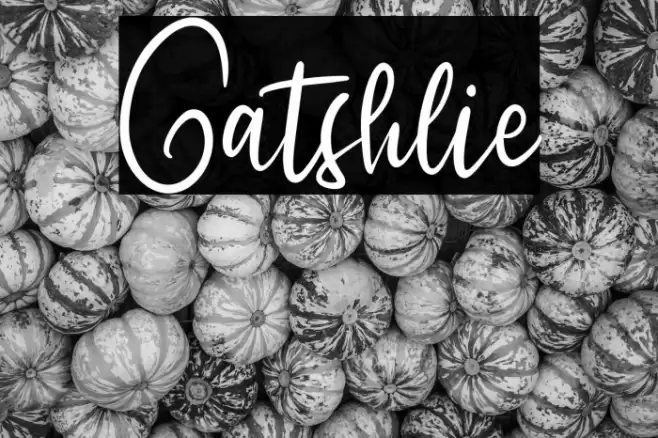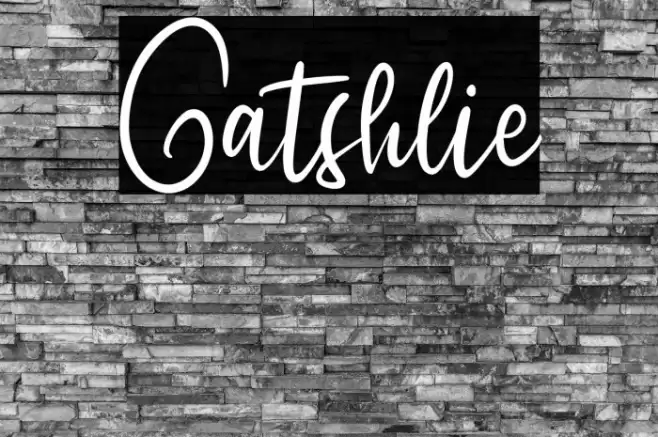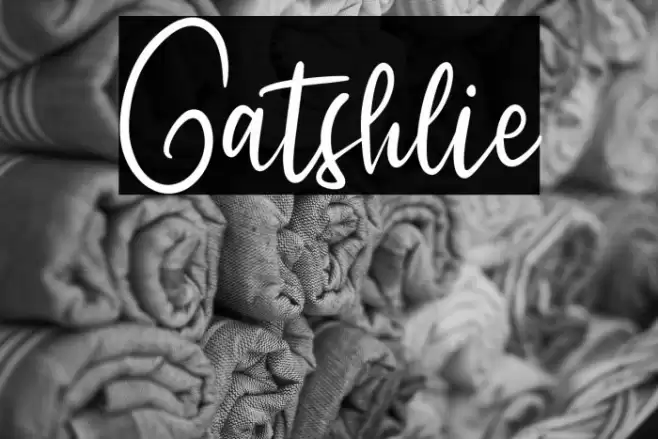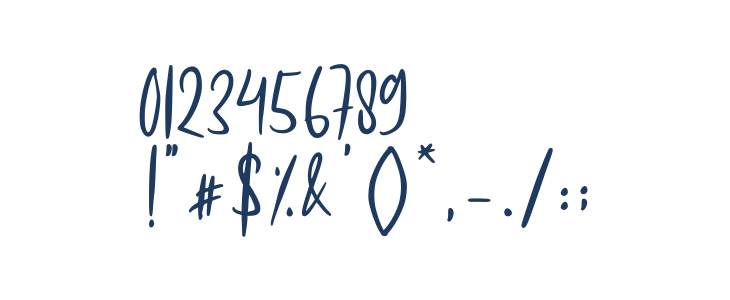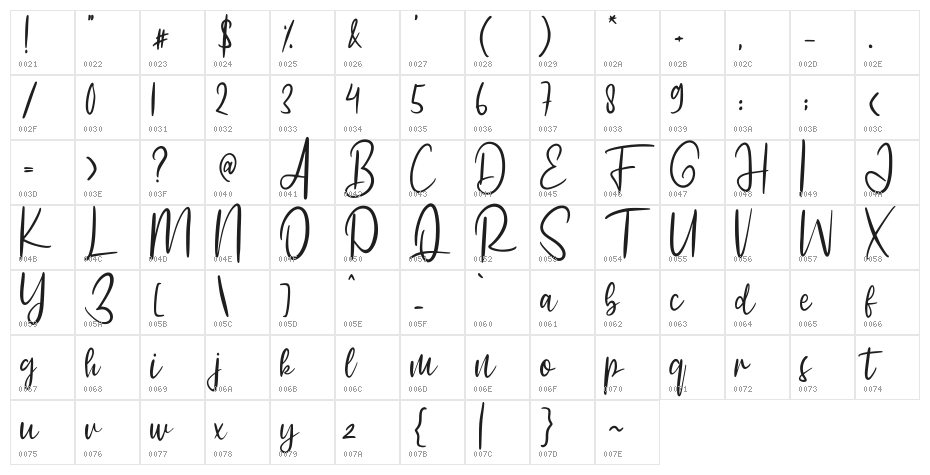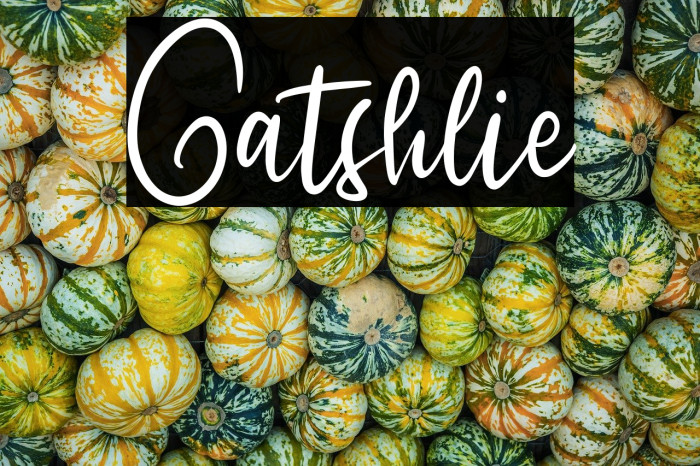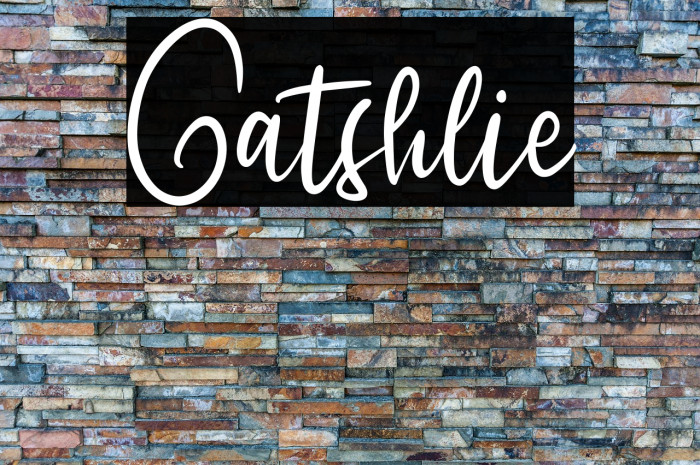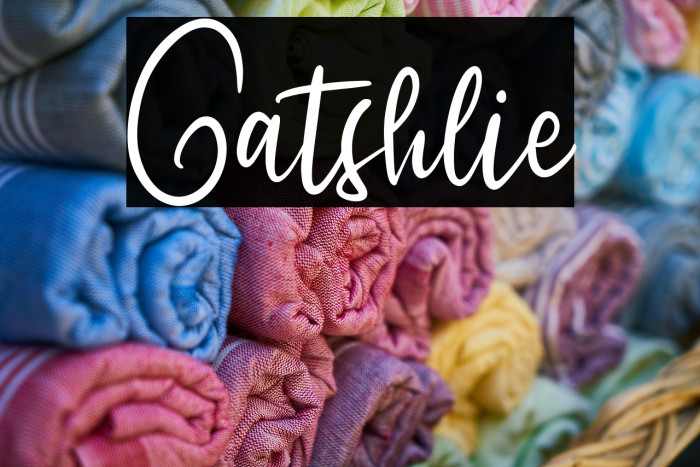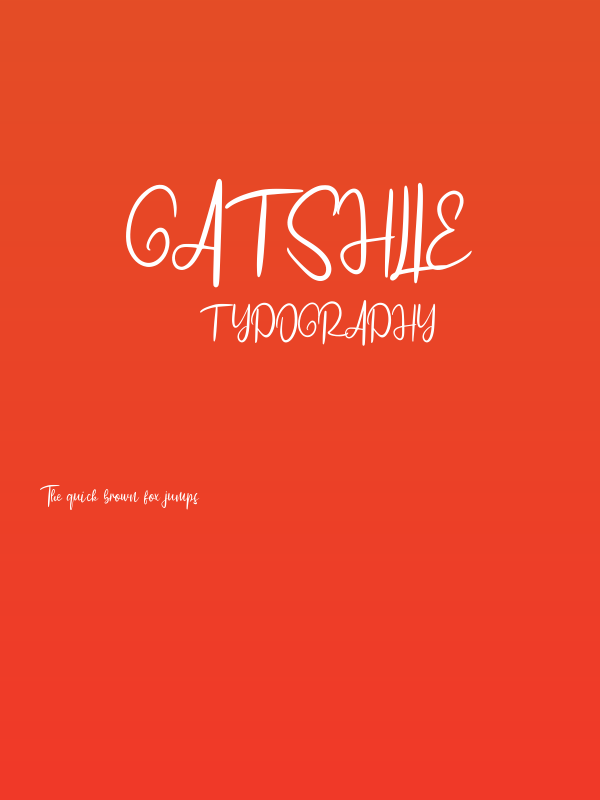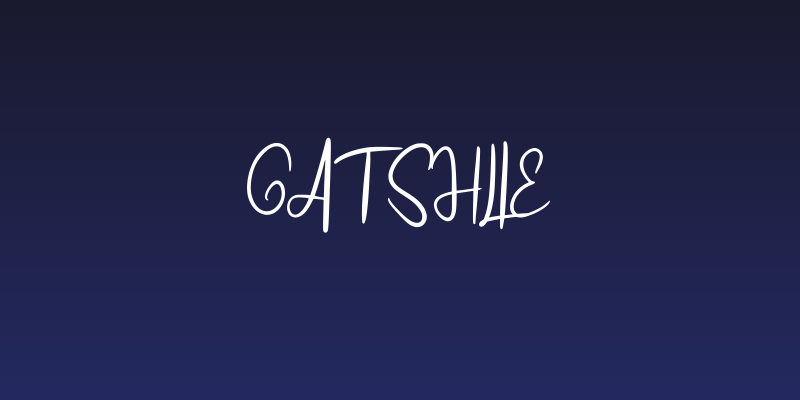
Gatshlie Font
Gatshlie Description
This font features a lively and expressive handwritten style, characterized by its fluid and dynamic strokes. The uppercase letters exhibit a playful and artistic flair, with varying heights and unique loops that add a sense of movement. The lowercase letters maintain a consistent flow, enhancing readability while retaining the font's whimsical nature. Numbers and special characters are crafted with the same attention to detail, ensuring a cohesive look across all elements. The font's overall appearance is both modern and approachable, making it suitable for a variety of creative applications.
A lively and expressive handwritten font with fluid, dynamic strokes from Regular fonts.
- Proposed Projects: Ideal for greeting cards, invitations, branding projects, and social media graphics.
- Use Case: Logos, Headlines, Decorative text